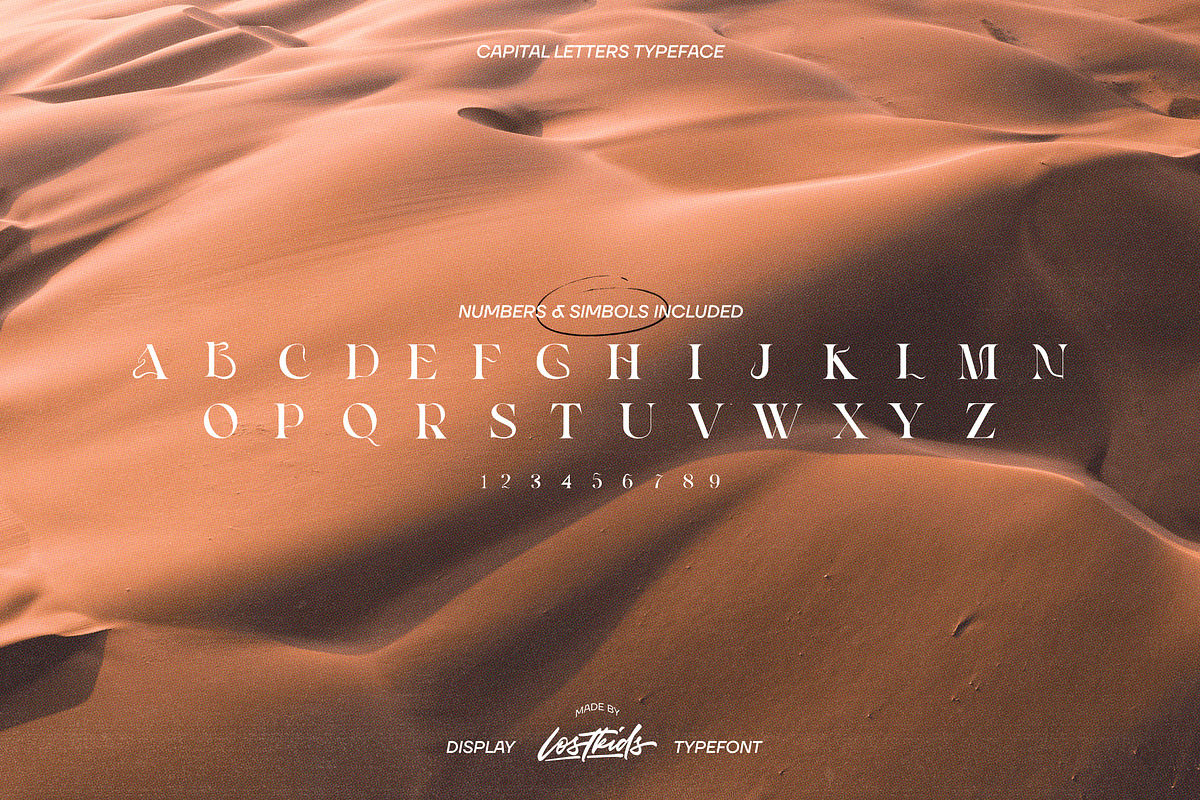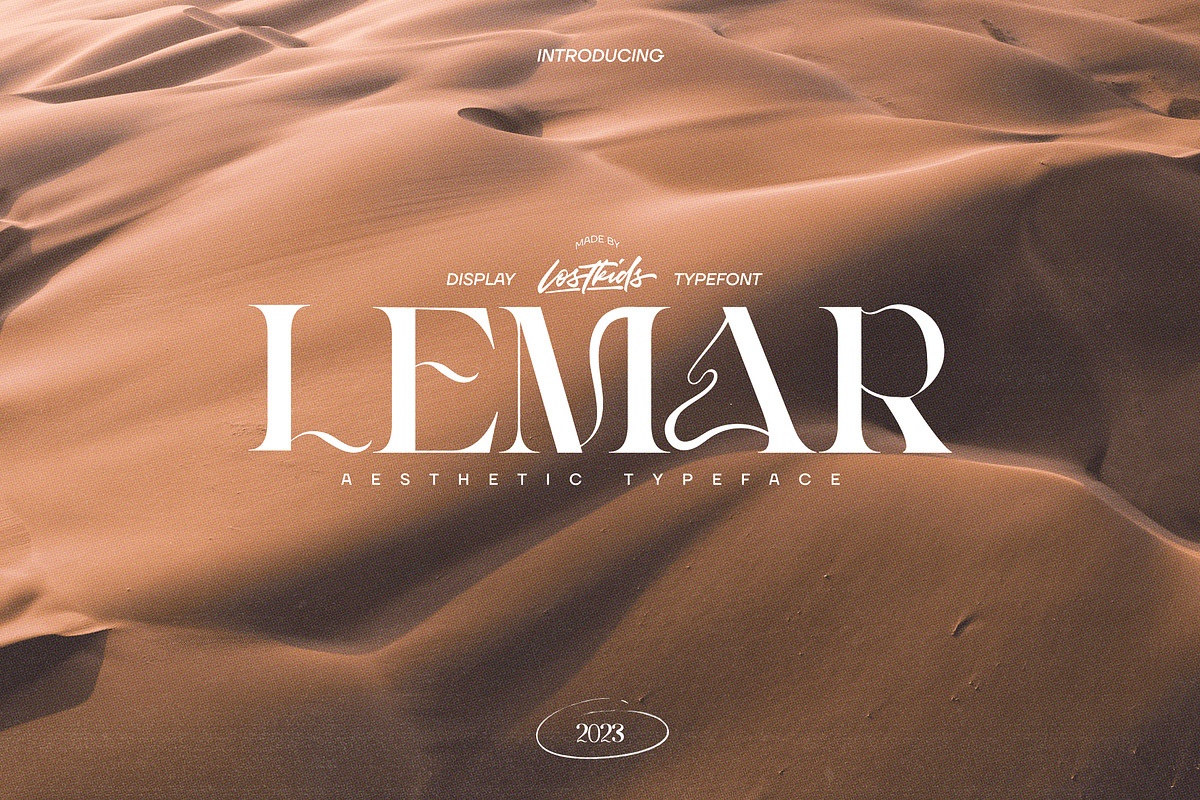
LEMAR DISPLAY AESTHETIC FONT
Say hello to Lemar display font :) A fantastic dreamy Aesthetic style font perfect for any project you need.
Lemar is elegant, but with a Vintage touch.
TYPOGRAPHY ONLY AVAILABLE IN CAPITAL LETTERS!